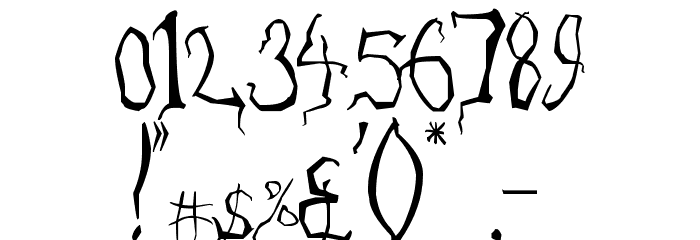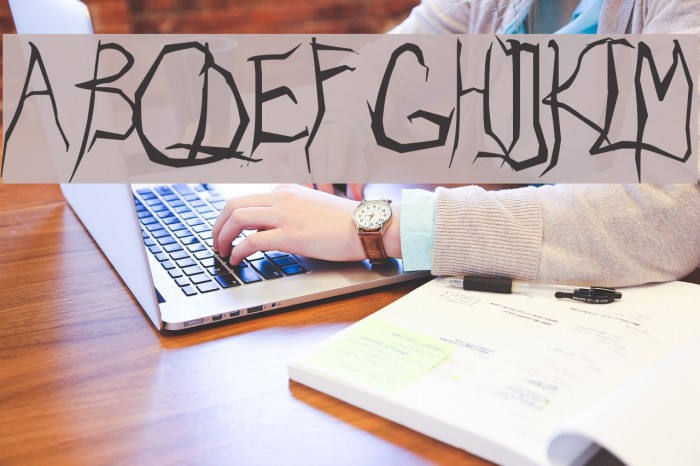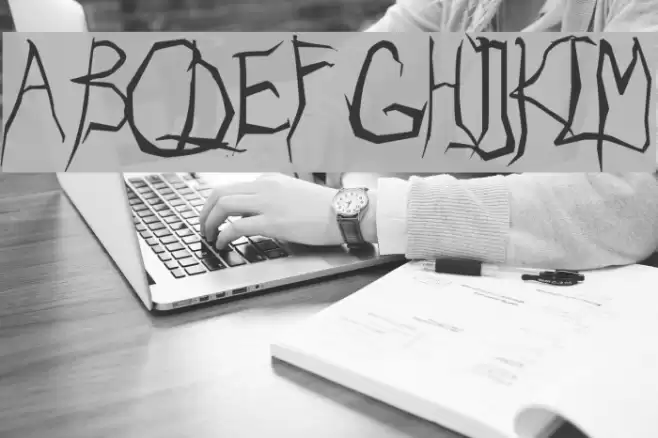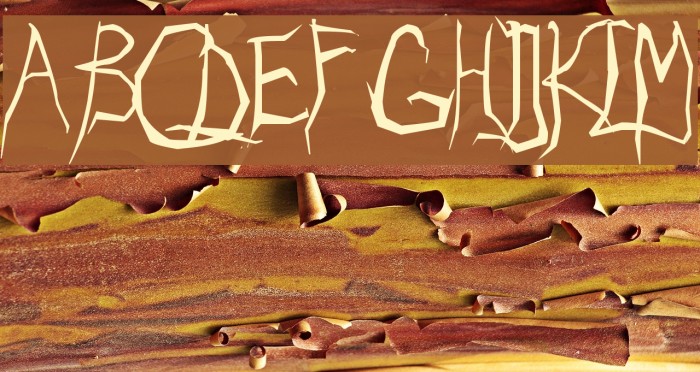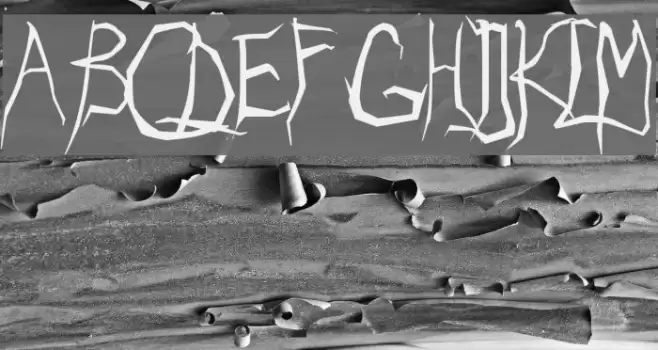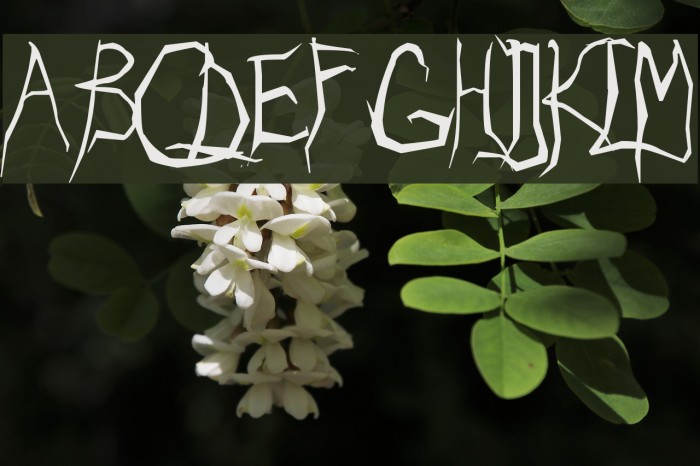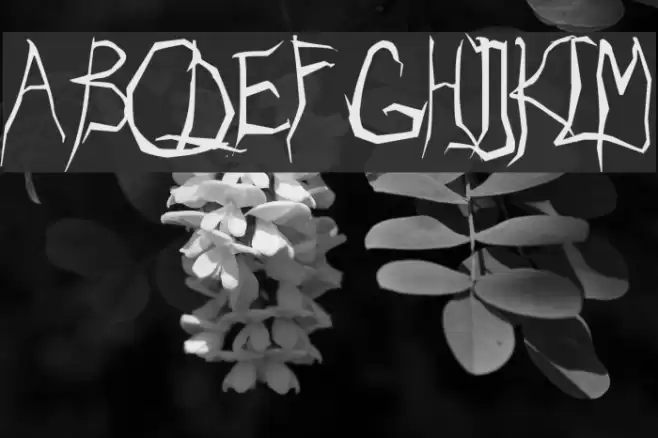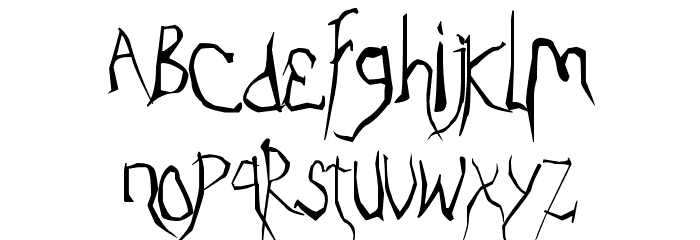
Eradicate Font
Eradicate Description
This font exhibits a unique, jagged style with irregular, sharp edges and a hand-drawn appearance. The characters are unevenly shaped, giving them a chaotic and edgy look. The uppercase letters are bold and prominent, while the lowercase letters maintain the same sharpness but with a slightly more subdued presence. Numbers and special characters follow the same design ethos, contributing to a cohesive yet unconventional typeface. The overall aesthetic is raw and expressive, making it stand out in any design context.
| Proposed Projects | Ideal for horror-themed designs, edgy posters, album covers, or any project requiring a bold, unconventional typeface. |